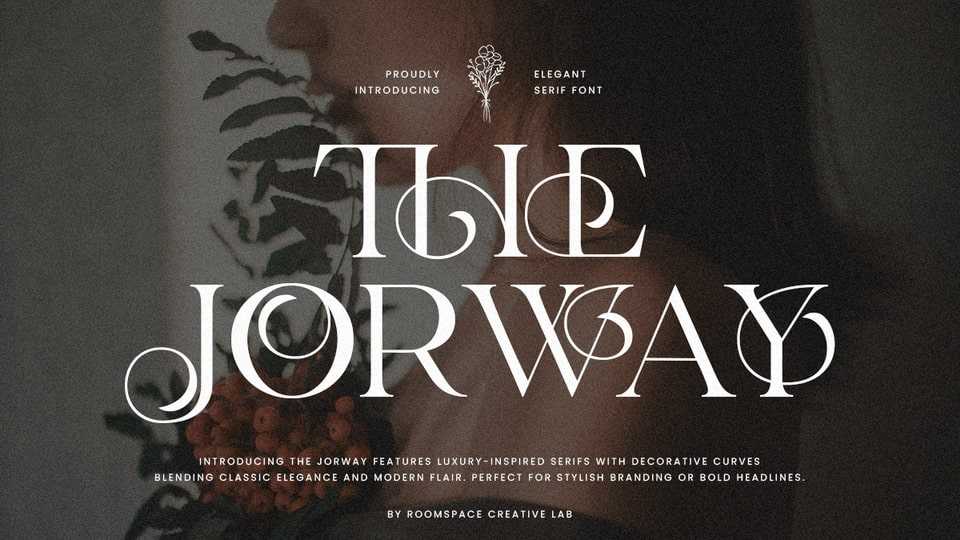
Download The Jorway font, a stylish serif typeface crafted to bring charm and personality to every design. Its decorative strokes and balanced proportions make it versatile for both modern and timeless aesthetics.